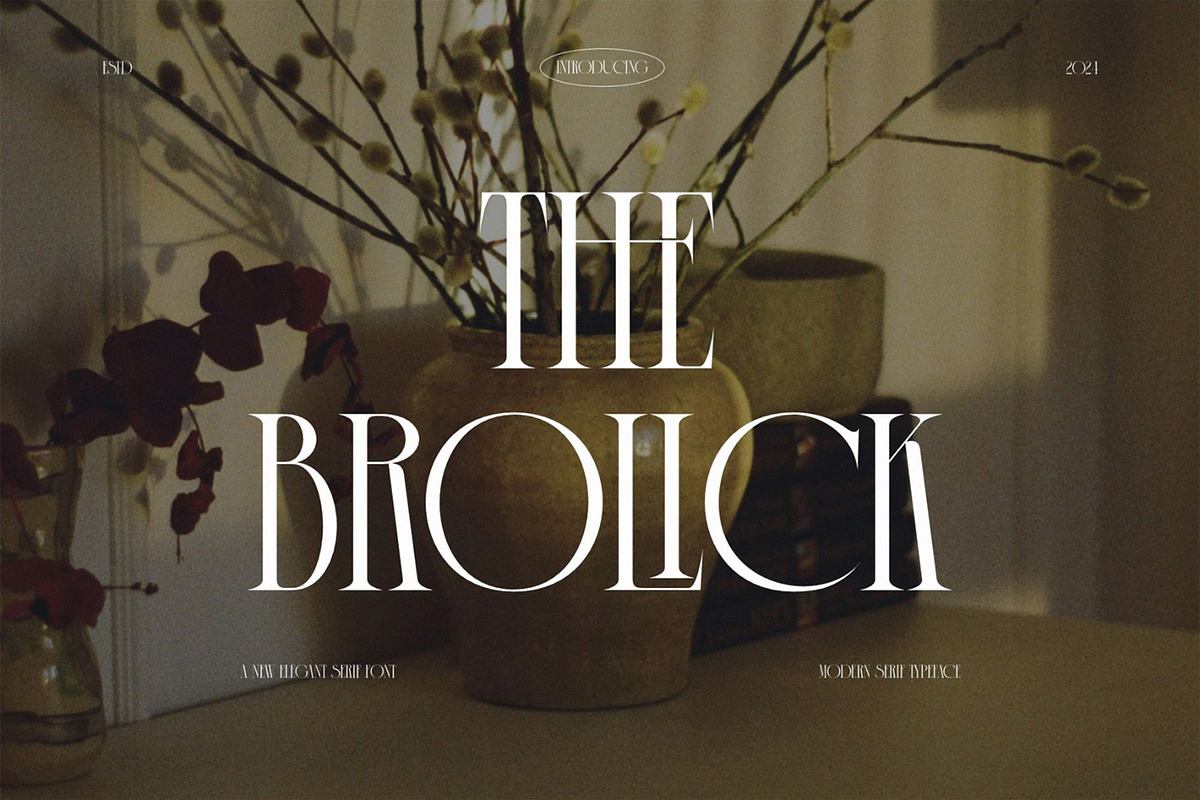
The Brolick Elegant Serif Typeface Free Download is a sophisticated and refined serif font designed to bring timeless elegance to your projects. Featuring high contrast strokes, delicate curves, and sharp serifs, The Brolick is perfect for high-end branding, luxury packaging, editorial design, wedding invitations, and upscale logos.
This font’s elegance and versatility make it ideal for both modern and classic applications. Whether you're designing a premium brand identity, an editorial layout, or a formal event invitation, The Brolick adds a refined, professional touch to your typography.